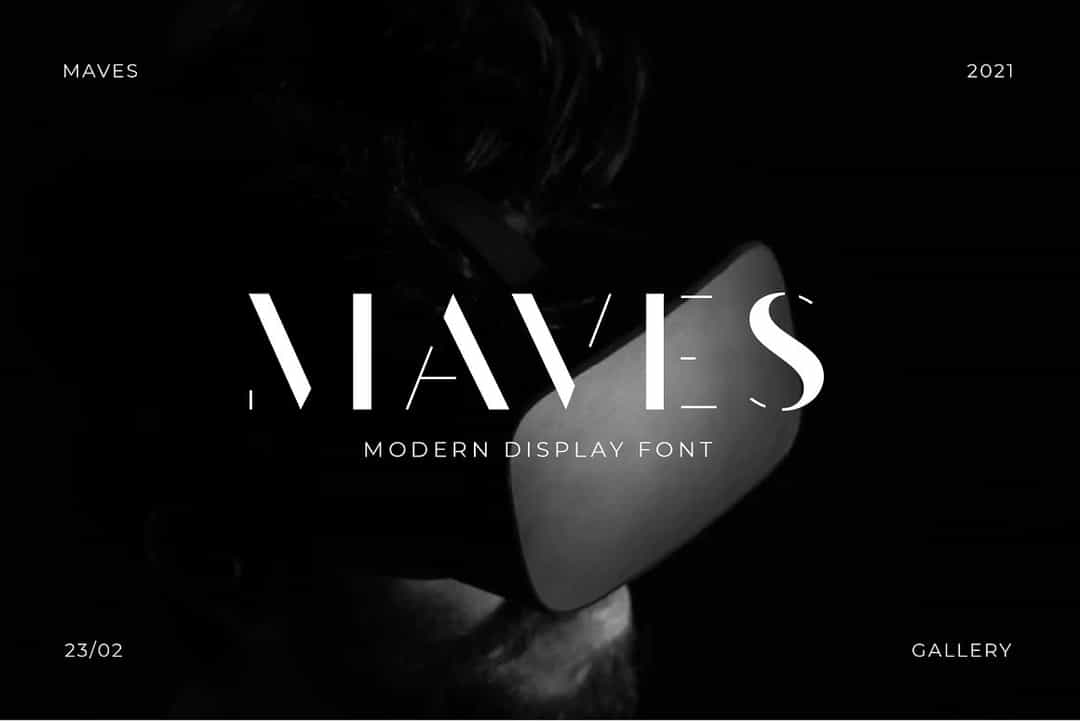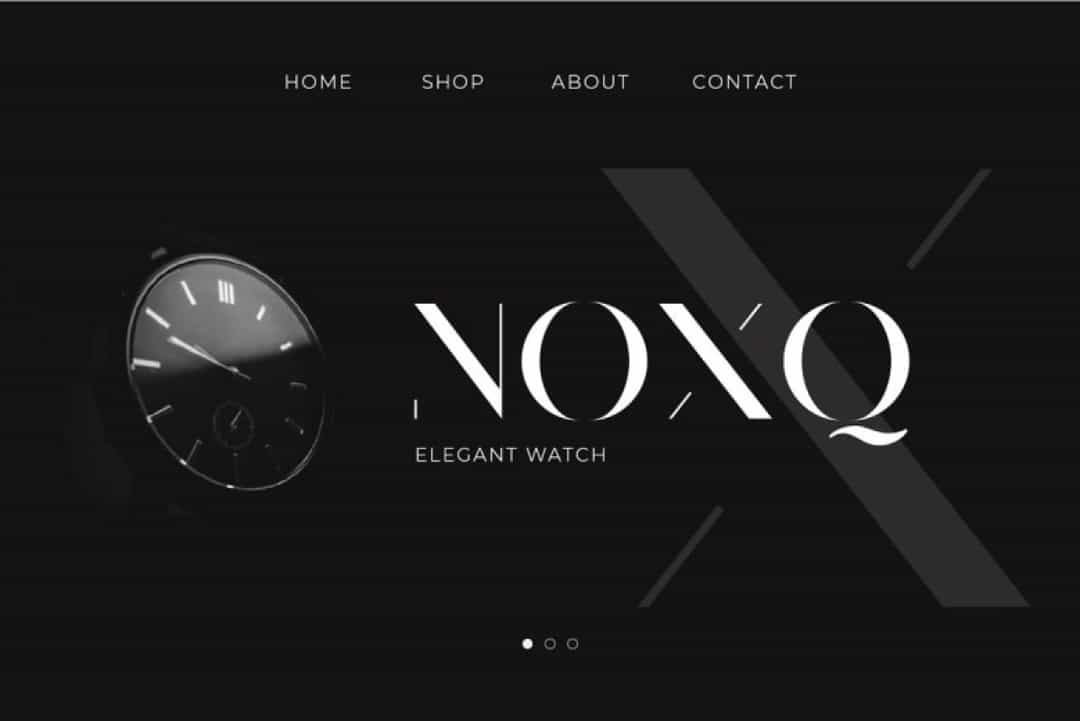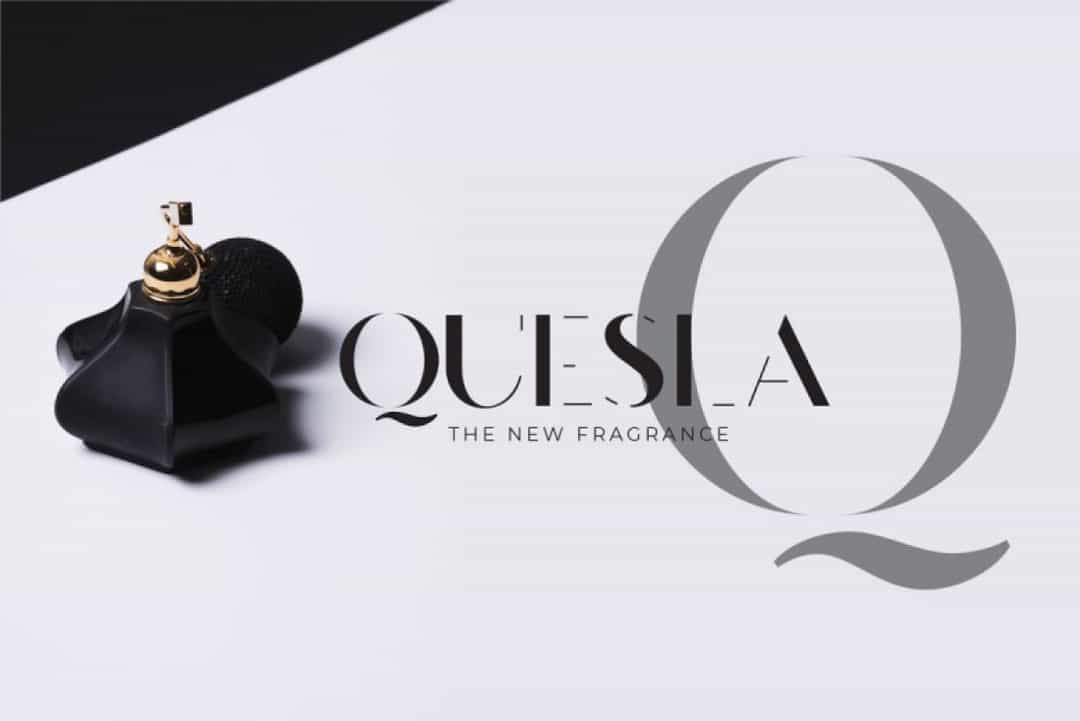
Maves is an eye-catching contemporary sans serif display font with an eye-catching futuristic and unique aesthetic, perfect for creating sophisticated visual brand identities such as headlines, logos and labels, titles stationary website business cards or any other advertising purposes.